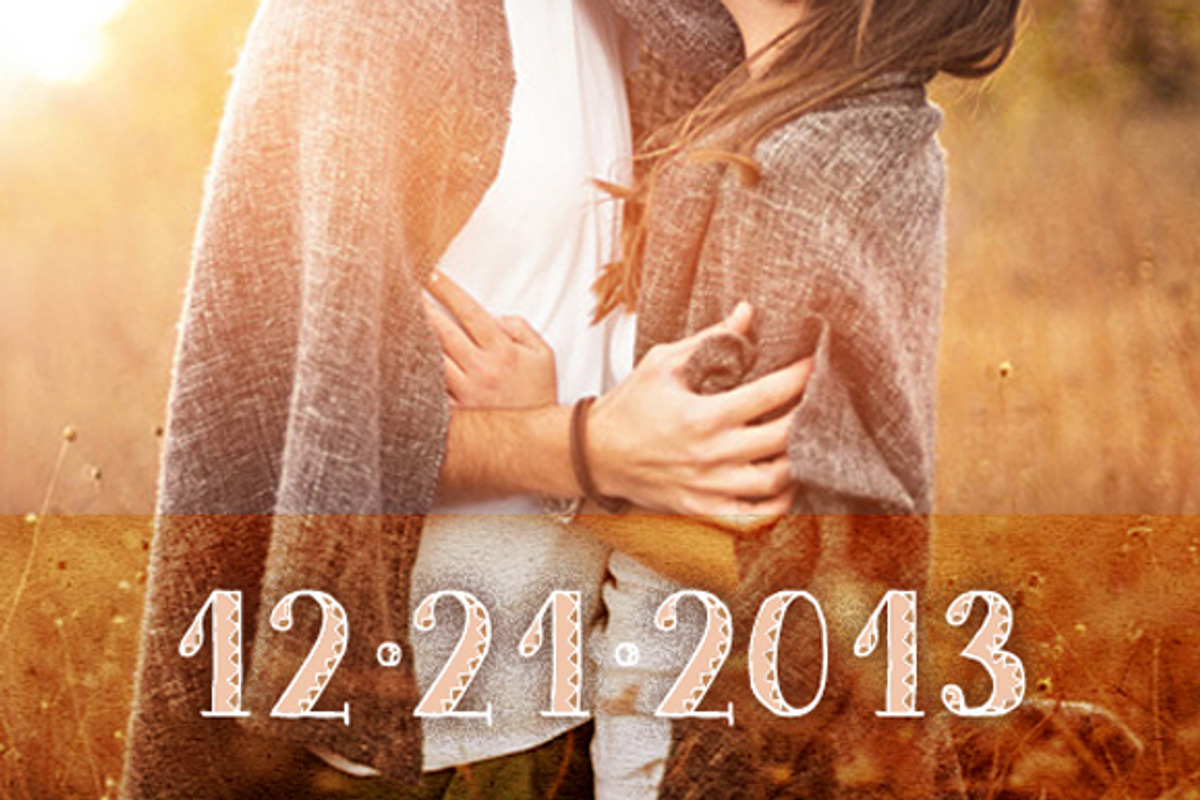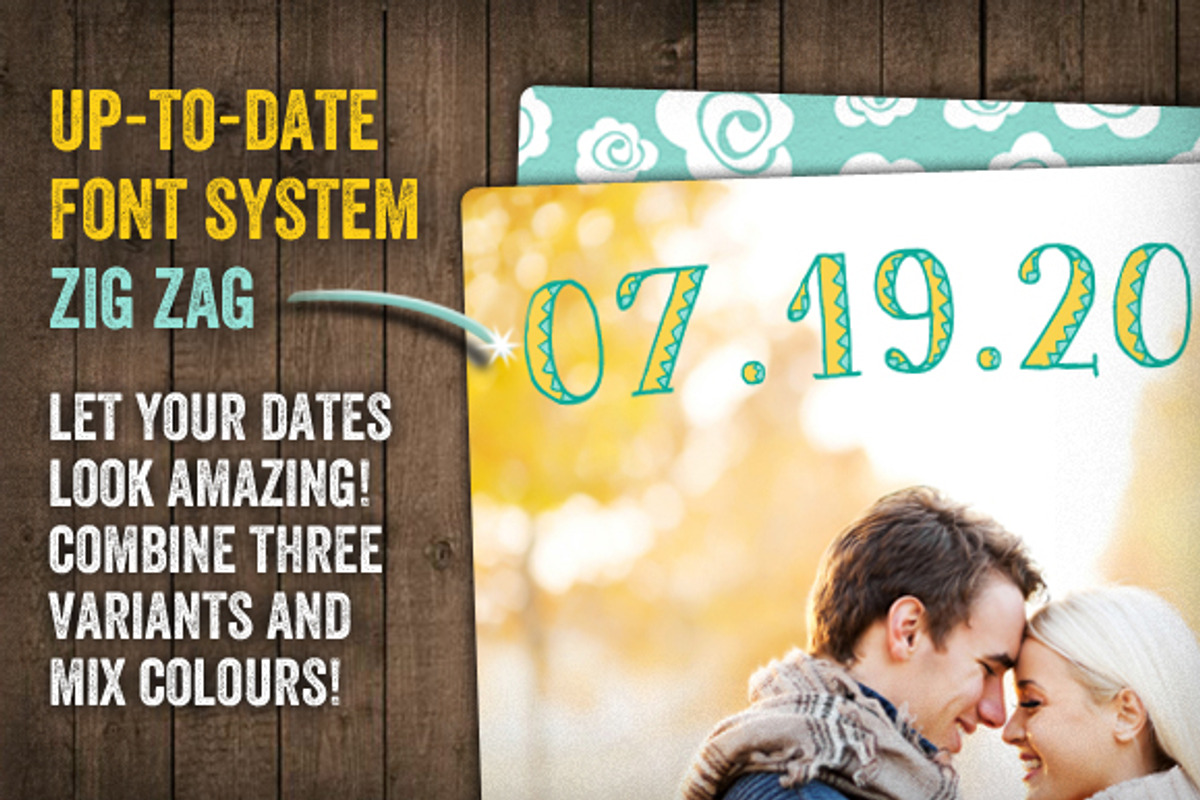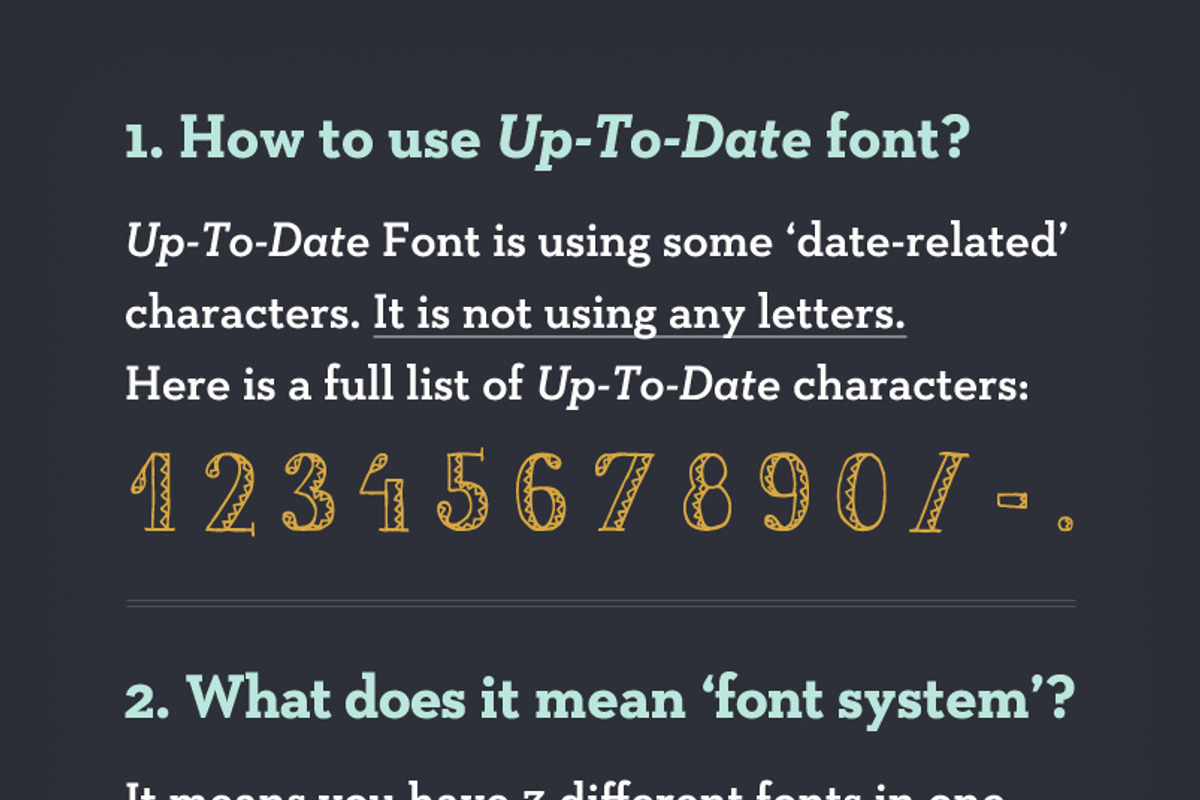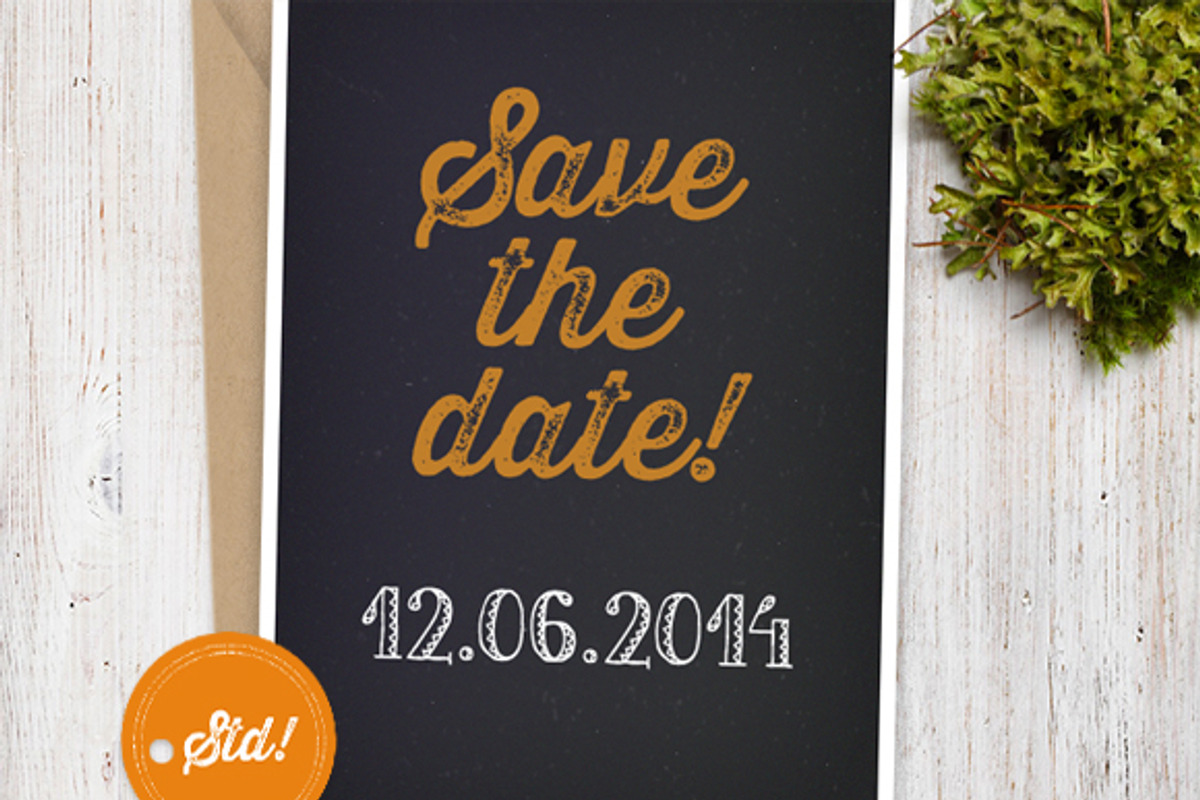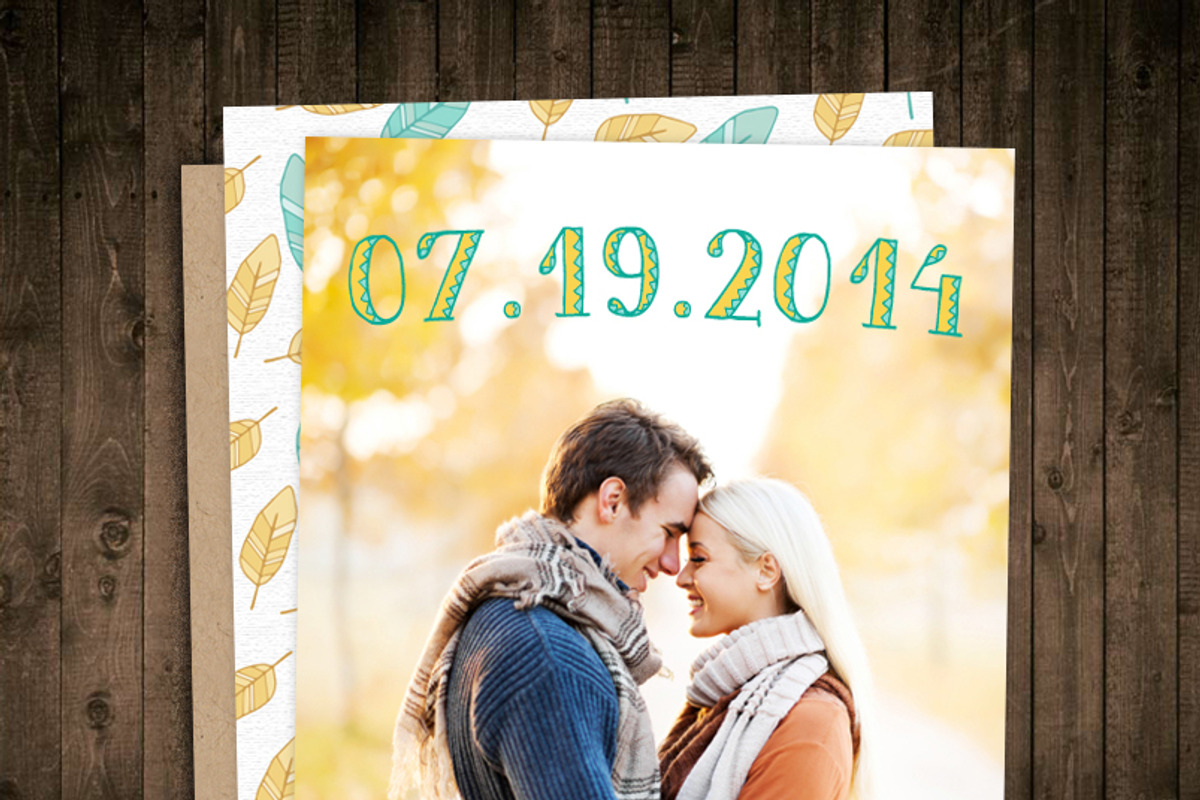
Up-To-Date Font | Zig Zag
Up-To-Date Font | Zig Zag by Frisk Shop is a font selected for branding, posters, packaging, typography.
- This 'date-related' characters font system allows you to conjure up hand-drawn, colorful and appealing date designs for your invitations, sa
- Fonts include 'date-related' characters only: 0-9 numbers as well as slash, hyphen & dot - all you need to create an awesome date ;).
Why Up-To-Date Font | Zig Zag is worth a look
Up-To-Date Font | Zig Zag by Frisk Shop fits naturally into Branding, posters, packaging, typography.